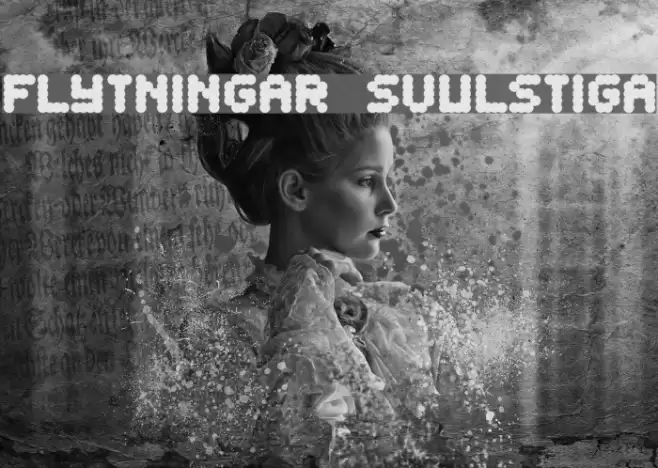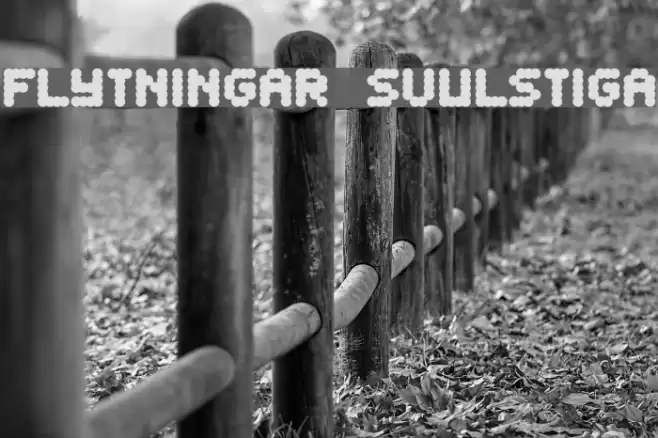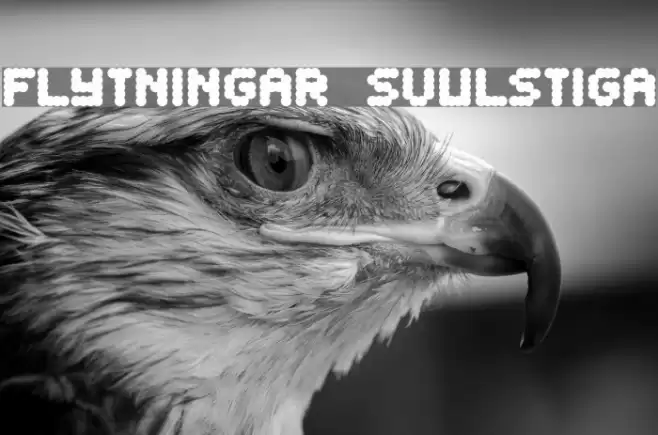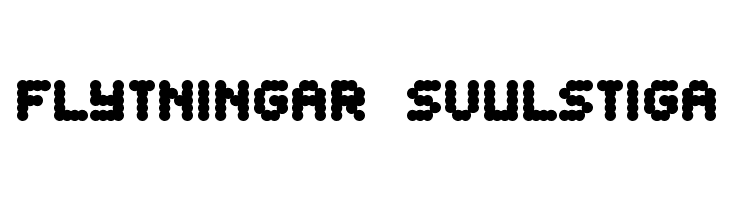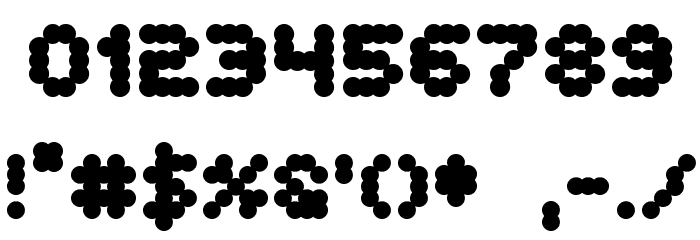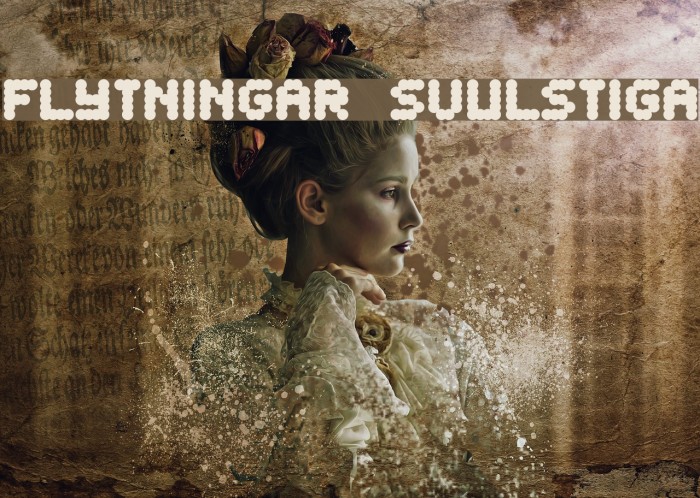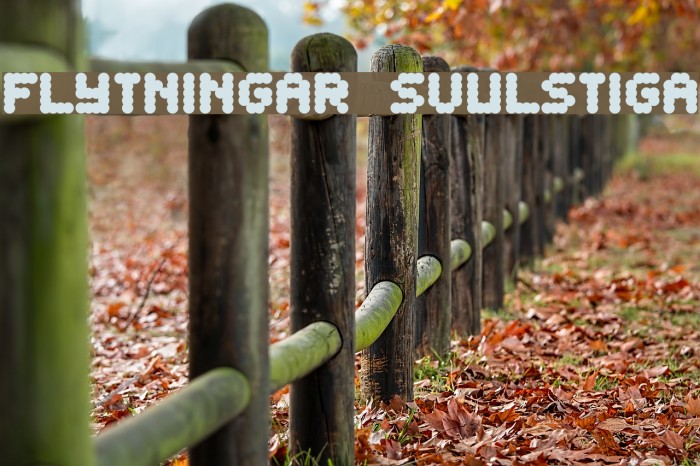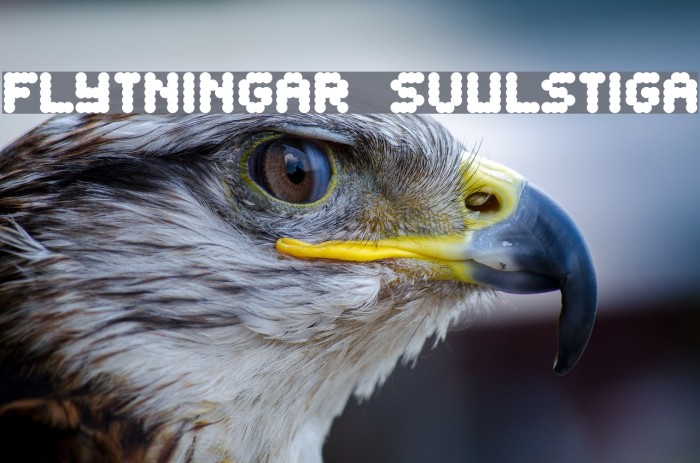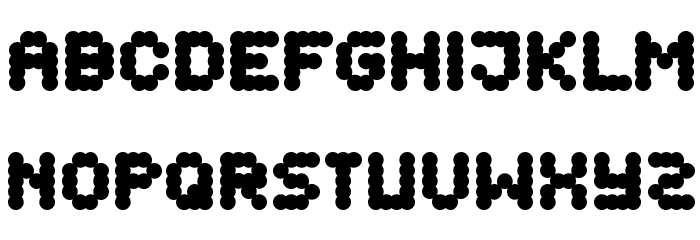
Flytningar Svulstiga Font
Flytningar Svulstiga Description
This font features a unique and playful design, characterized by its bubble-like, rounded shapes that form each letter and number. The characters are composed of small, circular dots that create a cohesive and visually engaging appearance. This style gives the font a whimsical and modern feel, making it stand out in any design project. The uniformity of the circles provides a consistent texture across all characters, while the boldness of the design ensures high visibility and impact. The font's playful nature makes it suitable for creative and informal applications.
A playful, bubble-like font with rounded, dot-formed characters from Uncategorized fonts.
- Proposed Projects: Ideal for children's books, playful branding, party invitations, and creative posters.